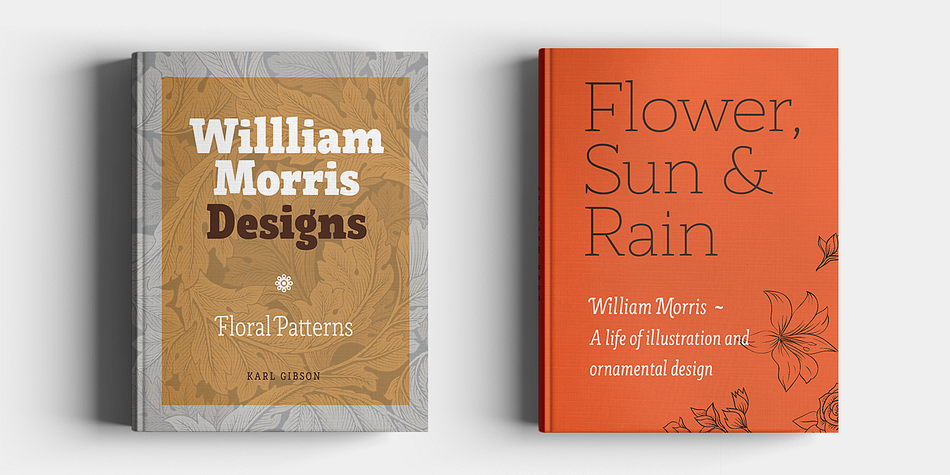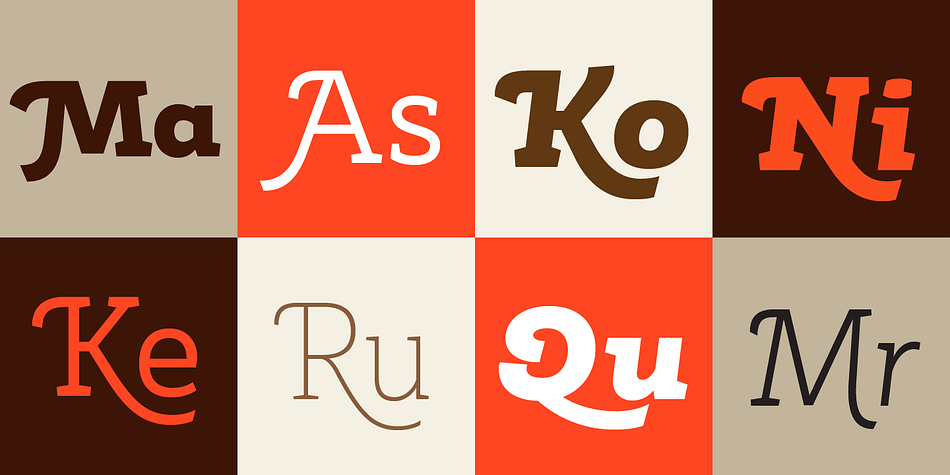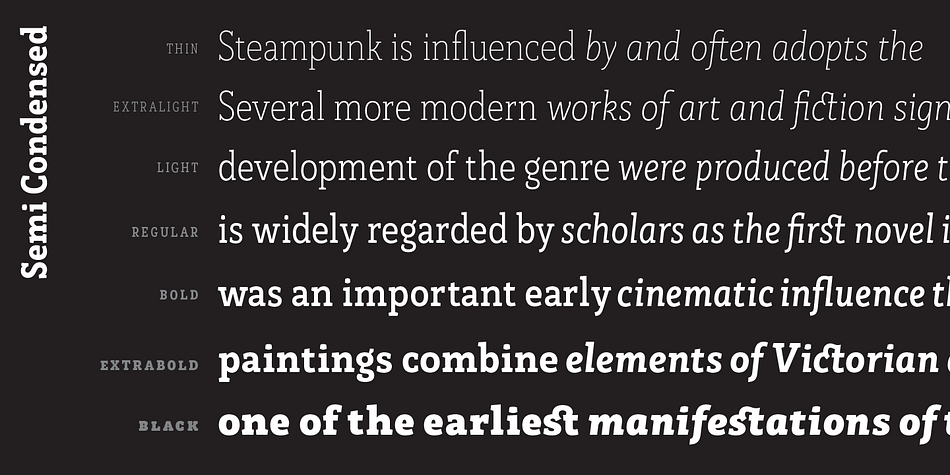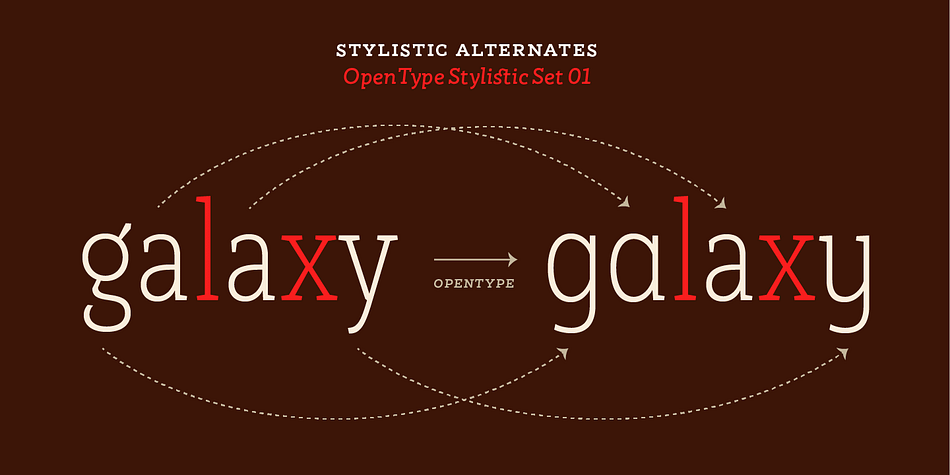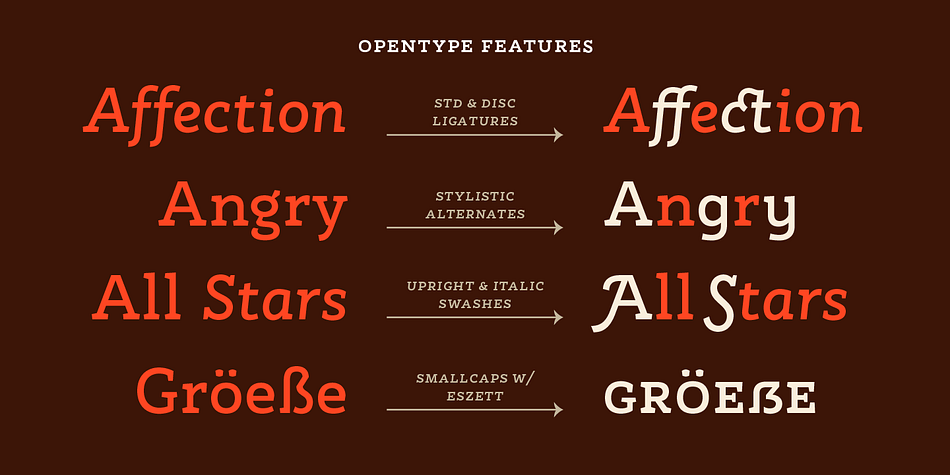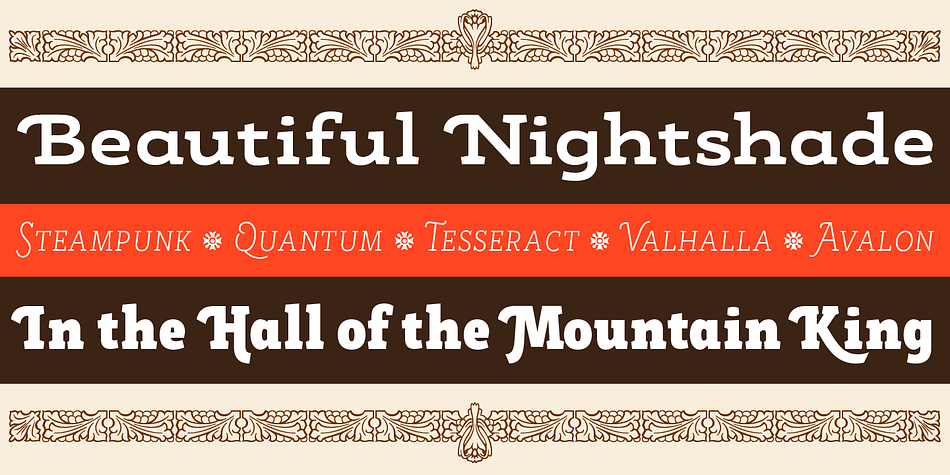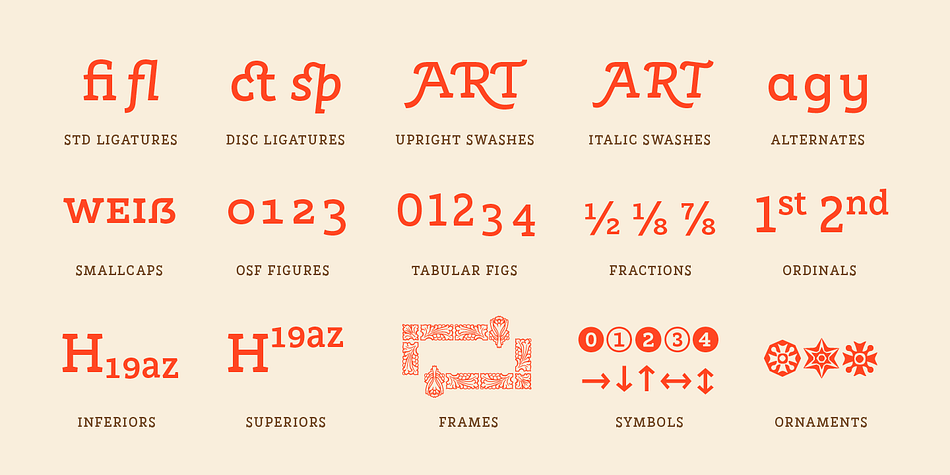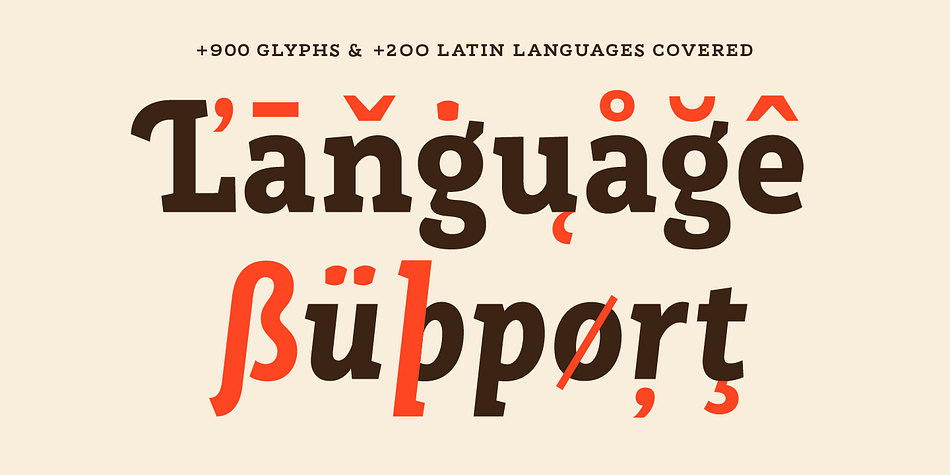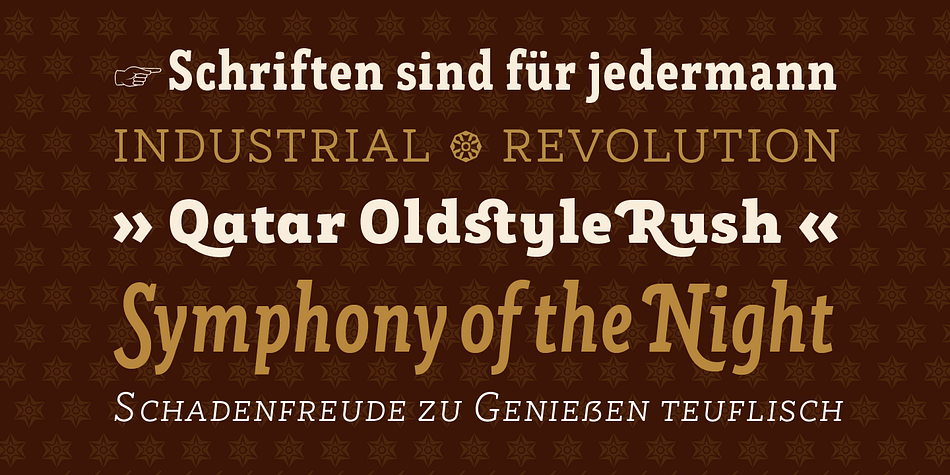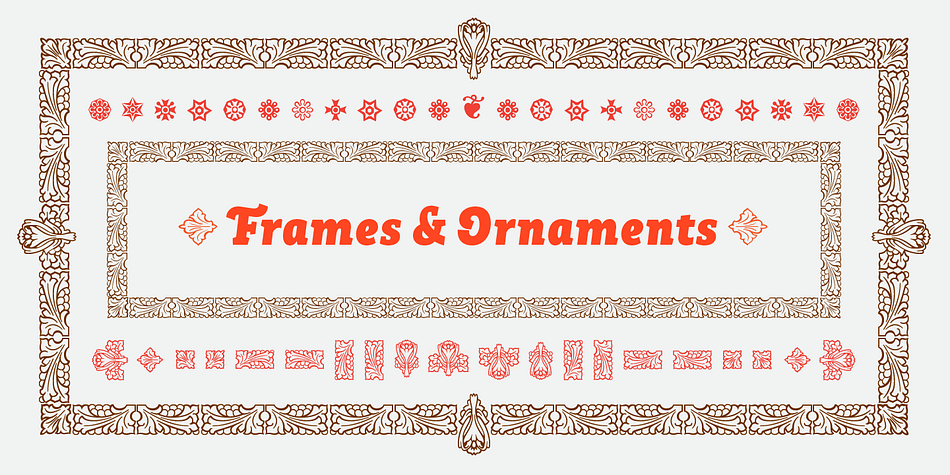
Designed by Rodrigo Fuentes, Rogliano Pro is a slab serif font family. This typeface has seventy styles and was published by Untype.
RoglianoPro is a 70-font humanist slab serif super family (7 weights on 5 styles each plus matching italics) that while maintaining a strong and direct backbone, sustains a warm undertone that nods to the lettering and lithographic posters of the Victorian era when you take into account its multiple stylistic alternates, borders and decorative ornaments. Extremely legible for small text as well as finely-detailed enough to be very attractive when used in large settings, RoglianoPro is a versatile typeface that offers a wide range of voices that can move from mechanical to humanistic with absolute ease, and perform efficiently from branding to editorial design. Its Slab serif letterforms are strong, but gregarious and approachable – it’s friendly, but its solid presence is still a typographic force to be reckoned with.
Rogliano includes a large set of over 900 glyphs, support for more than 200 latin script languages, a full complement of ligatures, small caps, swashes, William Morris-influenced borders and many Opentype features. In summary, a great addition to any multi-purpose type library.